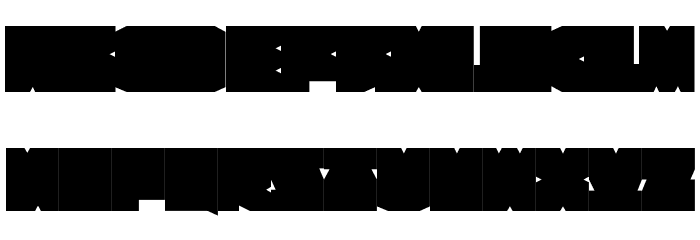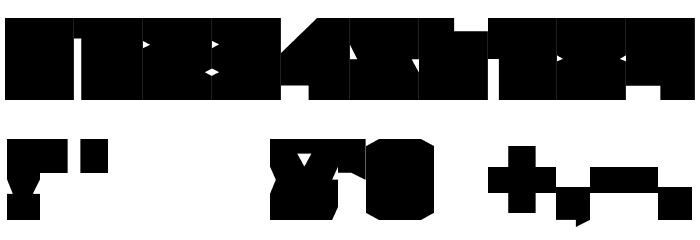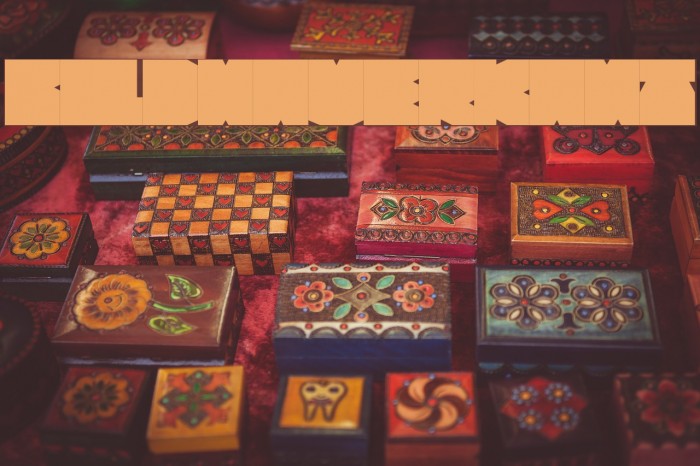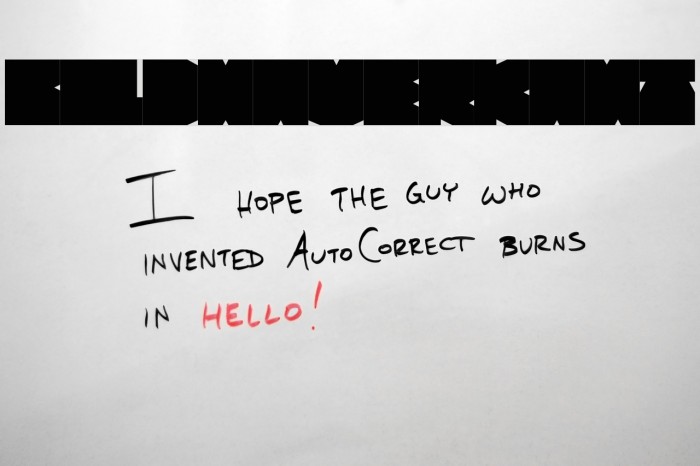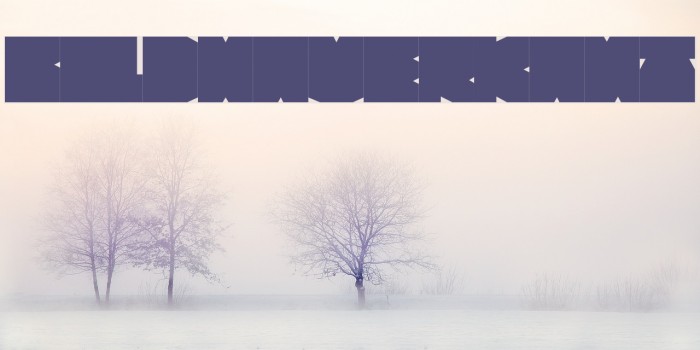
BildhauerKant Font
This font features a bold and geometric design, characterized by its blocky and angular letterforms. The characters are uniformly thick, creating a strong and impactful appearance. The uppercase letters maintain a consistent height, while the lowercase letters are slightly shorter, preserving readability. The numbers and special characters are designed to match the robust style of the alphabet, ensuring a cohesive look across all glyphs. The overall aesthetic is modern and industrial, making it suitable for projects that require a strong visual presence.
A bold, geometric font with blocky, angular letterforms and a modern industrial style.
- Proposed Projects: Ideal for branding, posters, headlines, and any design that requires a bold and impactful typeface.